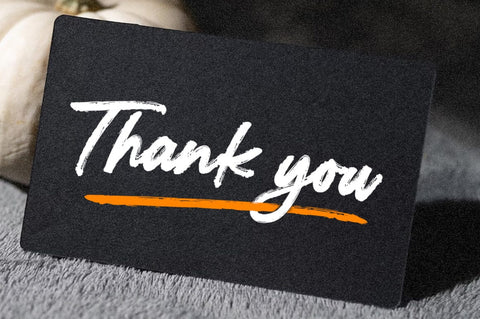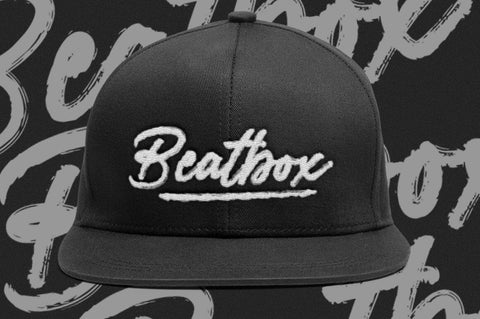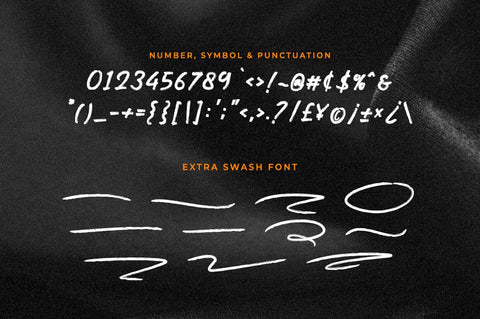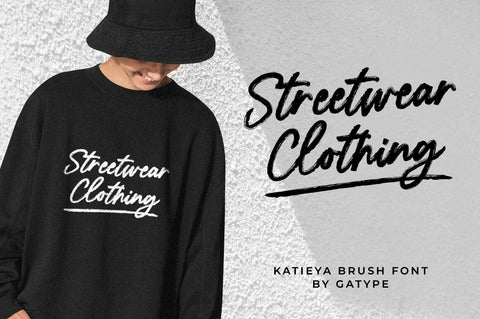
Katieya
Katieya is a handwritten font set. Great for logos, name tags, handwritten quotes, product packaging, merchandise, social media & greeting cards. It saves a lot of time in designing a product. It contains a full set of lowercase & uppercase letters, a large variety of punctuation marks, numbers and multilingual support.
This font will add a fun and friendly touch to any of your projects! This font is PUA coded which means you can easily access all the glyphs and strokes and much more.